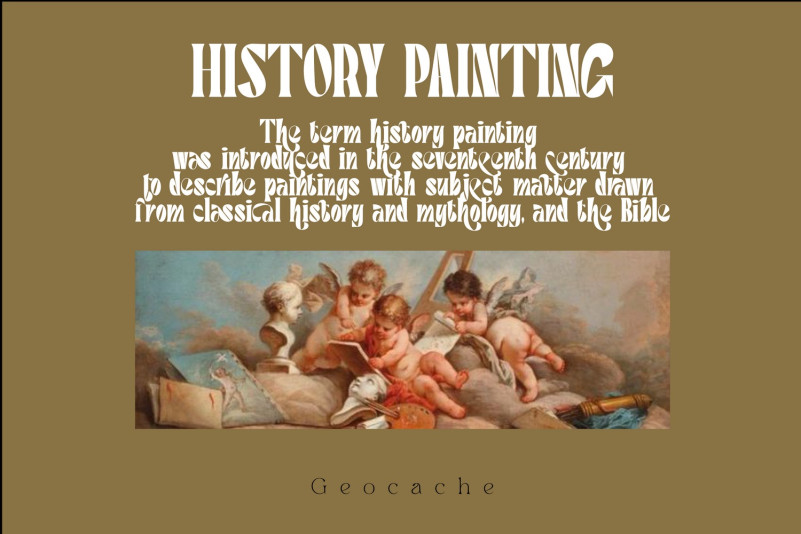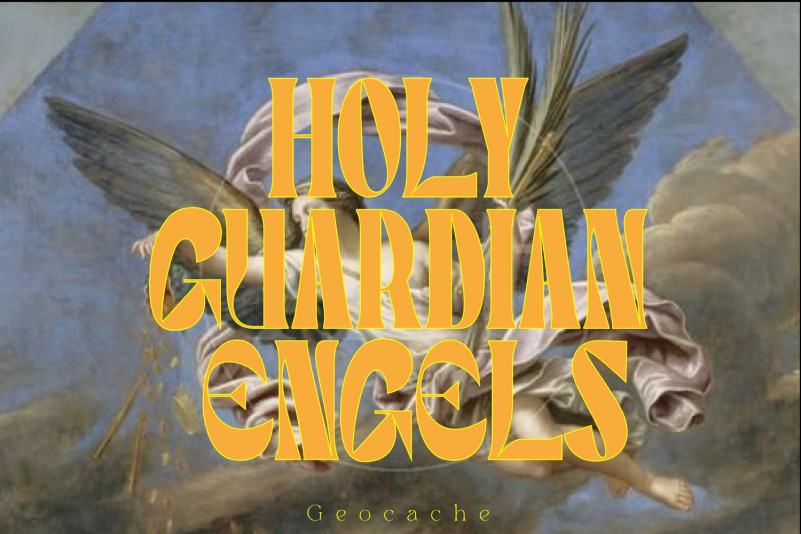
Geocache Elegant Font
Geocache Condensed Font is an elegant, condensed sans serif font with a bold and complex personality. The type is a weird serif combined with some sharp turns, it is inspired by vintage typography & lettering and it features some new-era touches. This makes the type somewhat a hybrid in between the future & the past, keeping our old era alive while still being somewhat trendy.
To make it look more unique, here we prepared some ligatures:
ab ag as at ay ca cc ce cg co cs cy ec ee eo fj fh fk fb ga ha hc he hi uo ue to st sa rj ri ra os ns ms ku ko ki ke ka ks jl jk jh jf jb il ik ih if ib hs ho uc us xa xc xe xo xs xy za ze zo zs